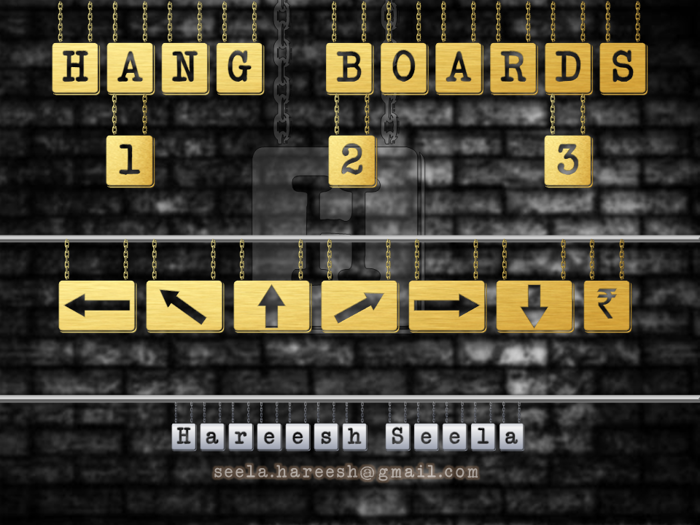
HANG BOARD 123 Font
This font resembles the hang boards hanged with chains... looking fancy.
Some special characters added to show directions.
Try { } [ ] > < `